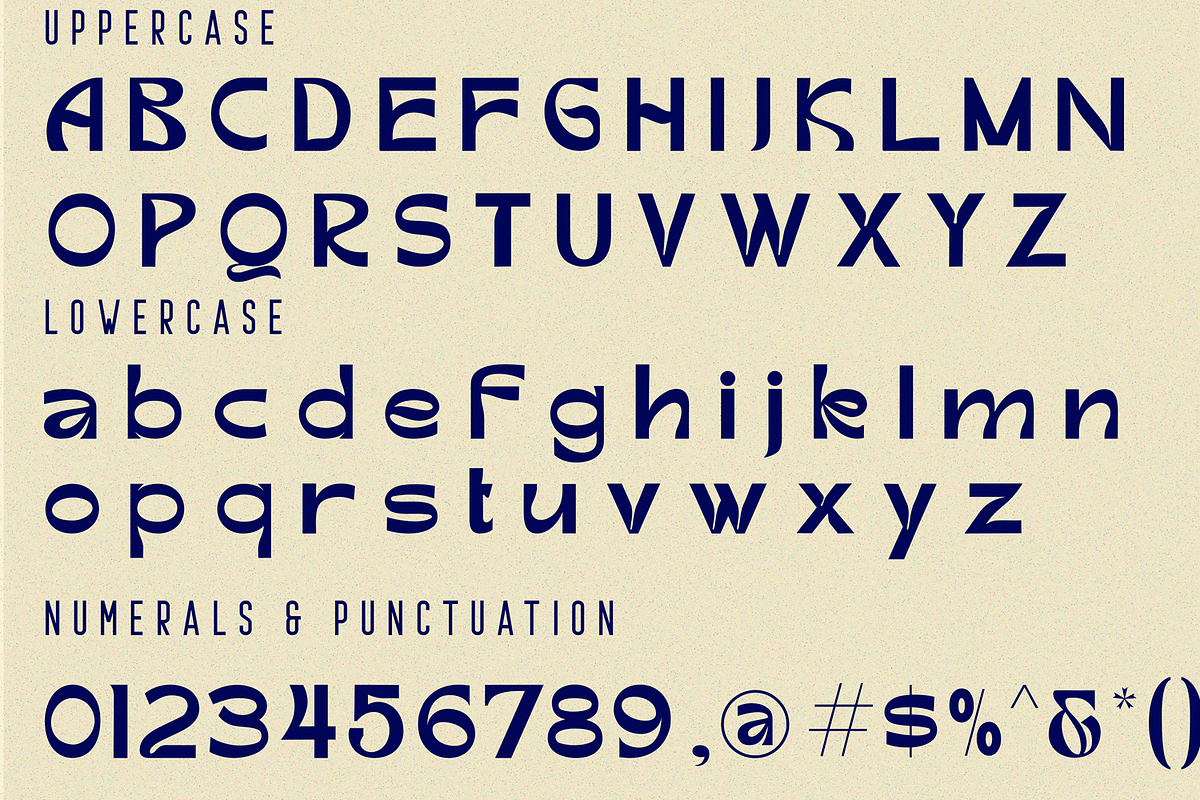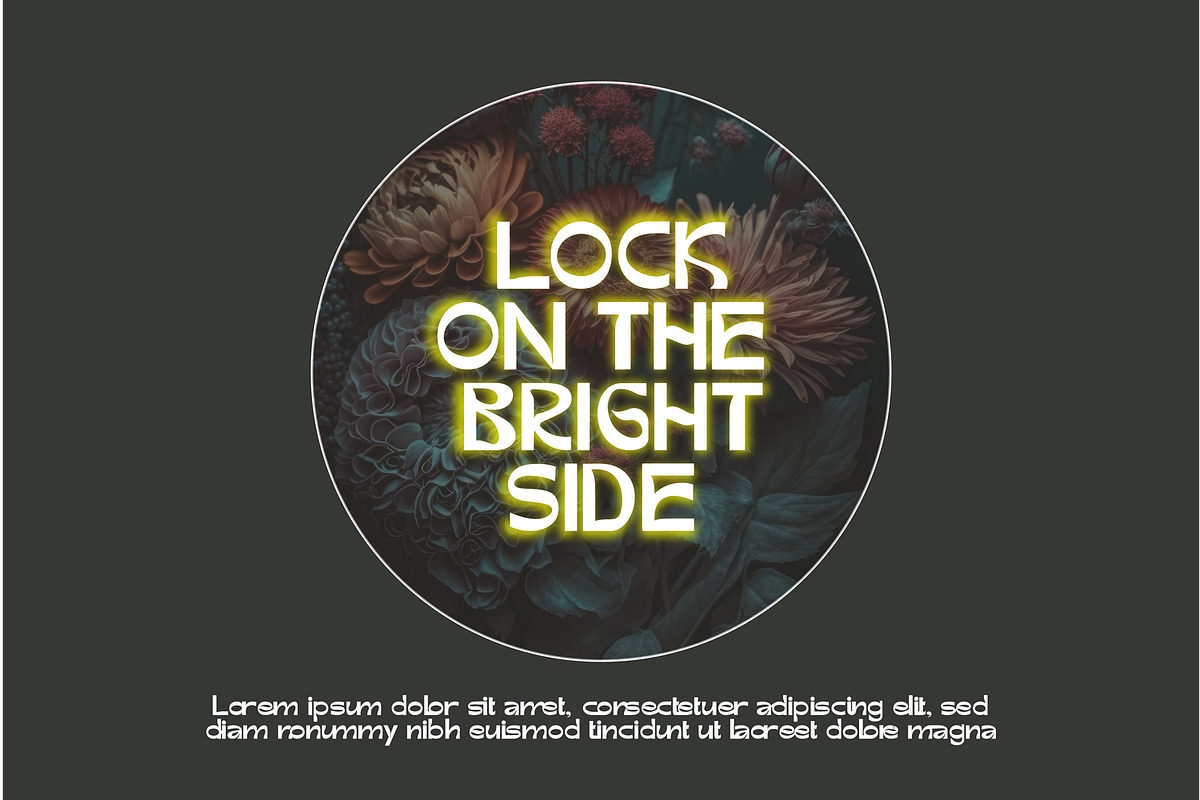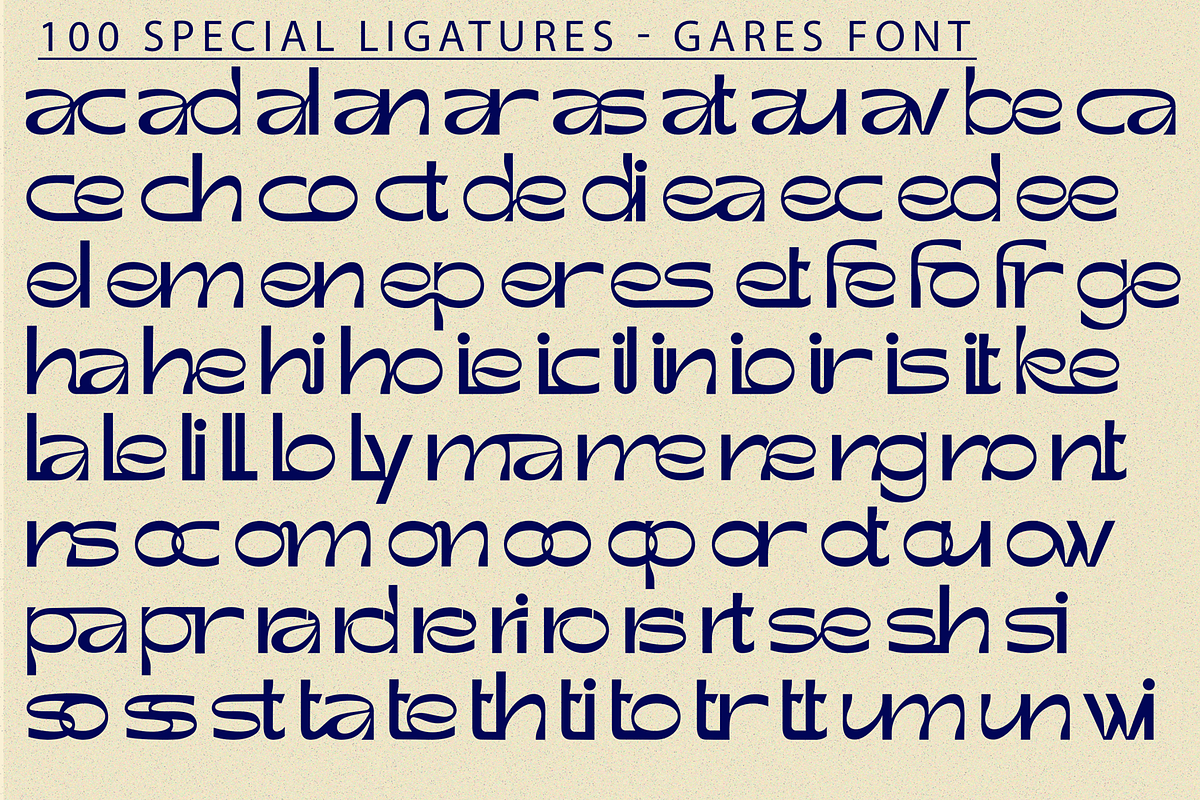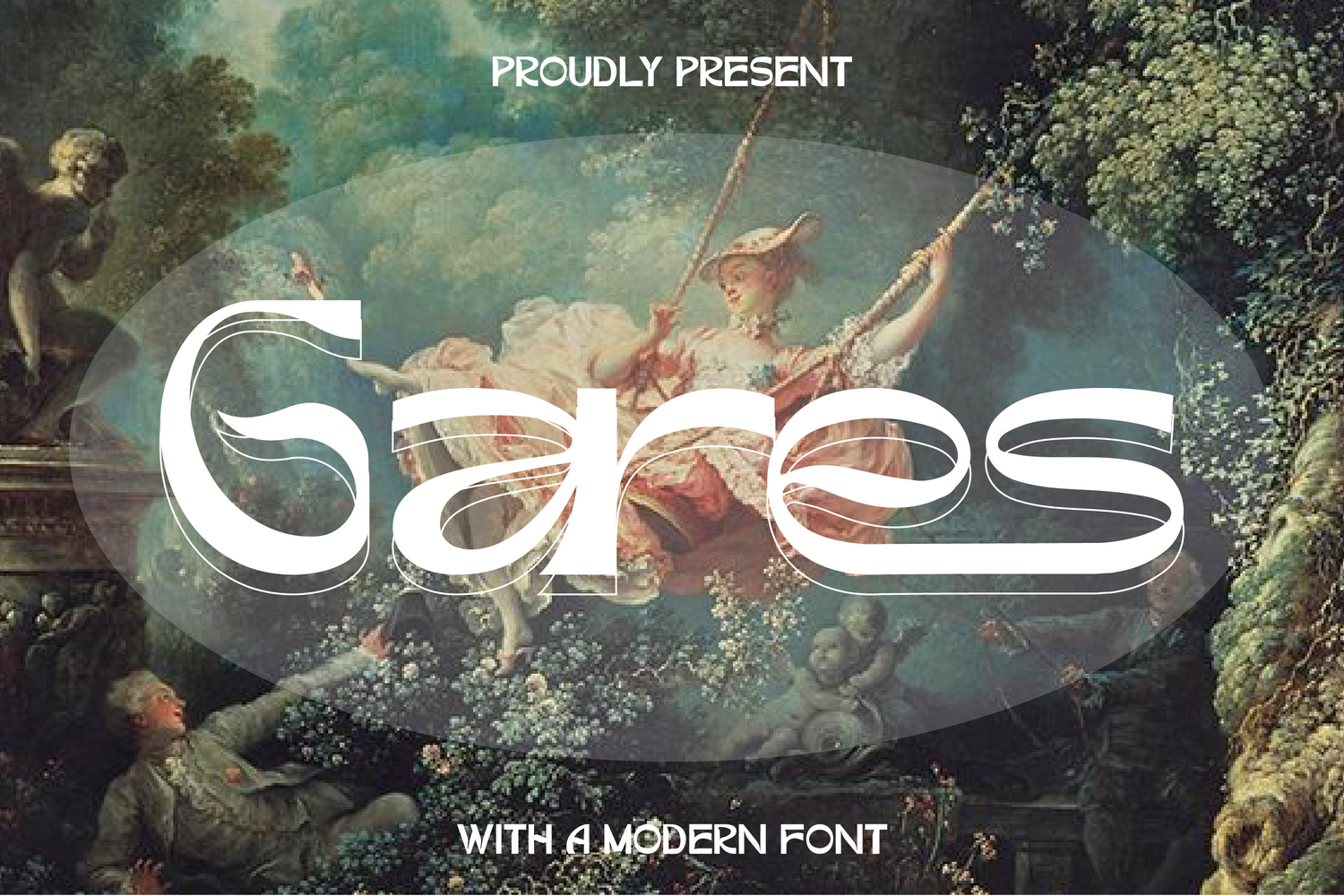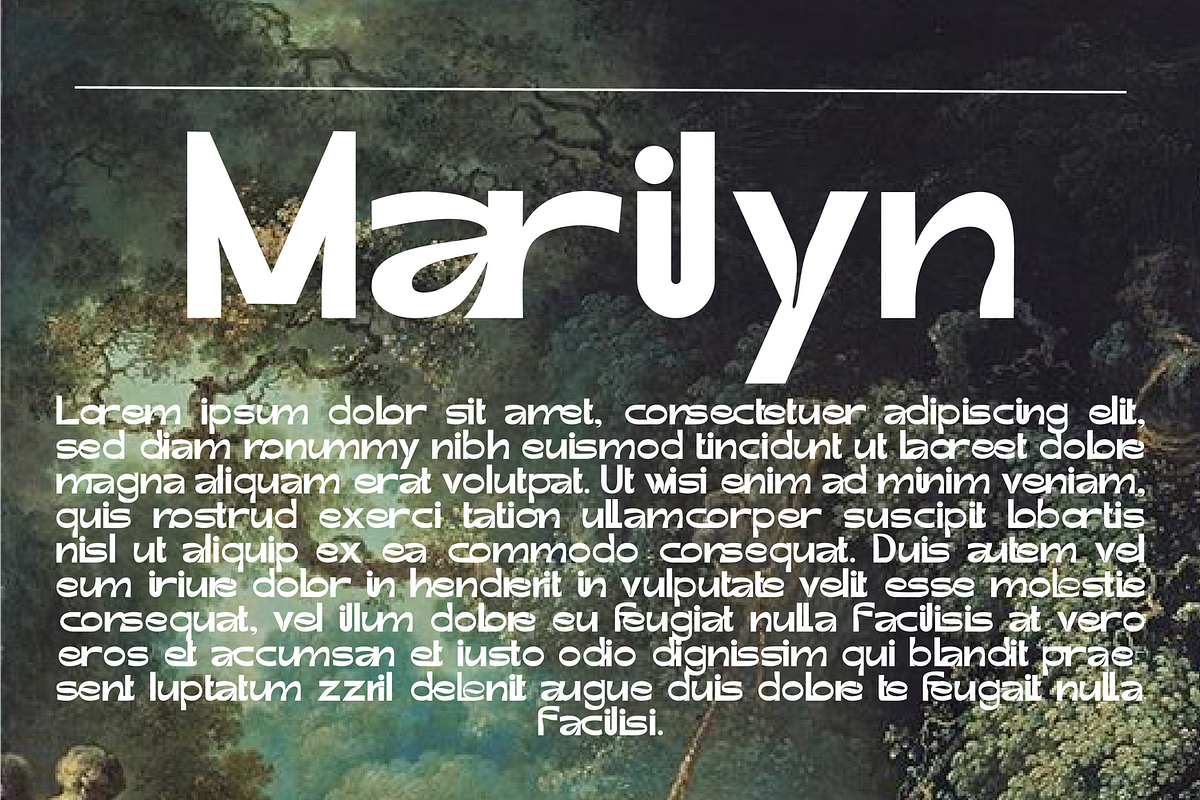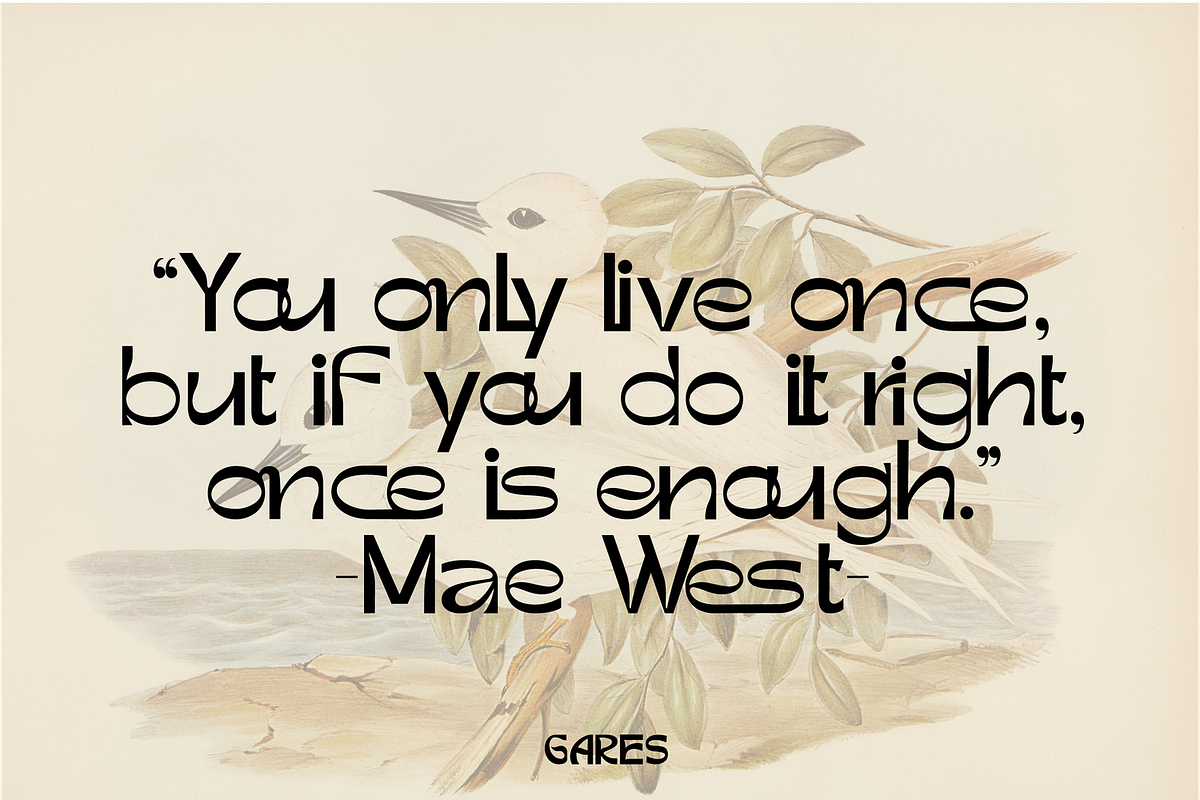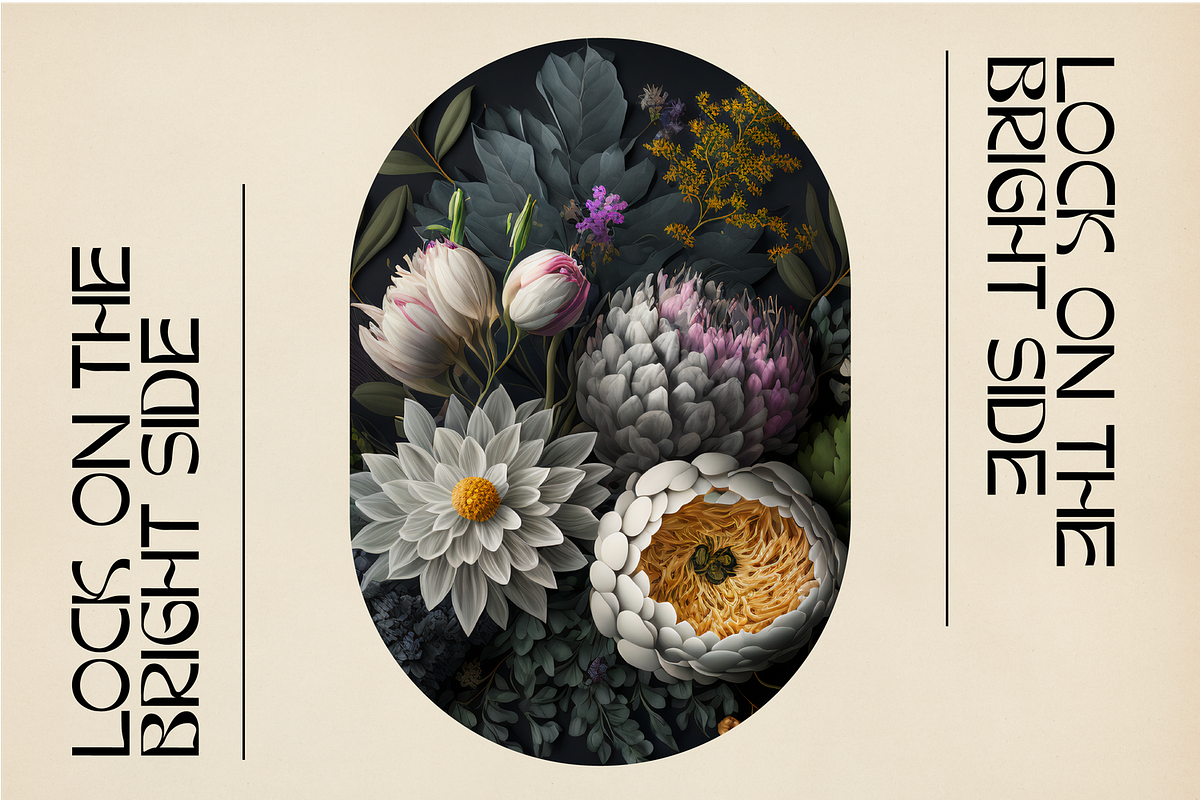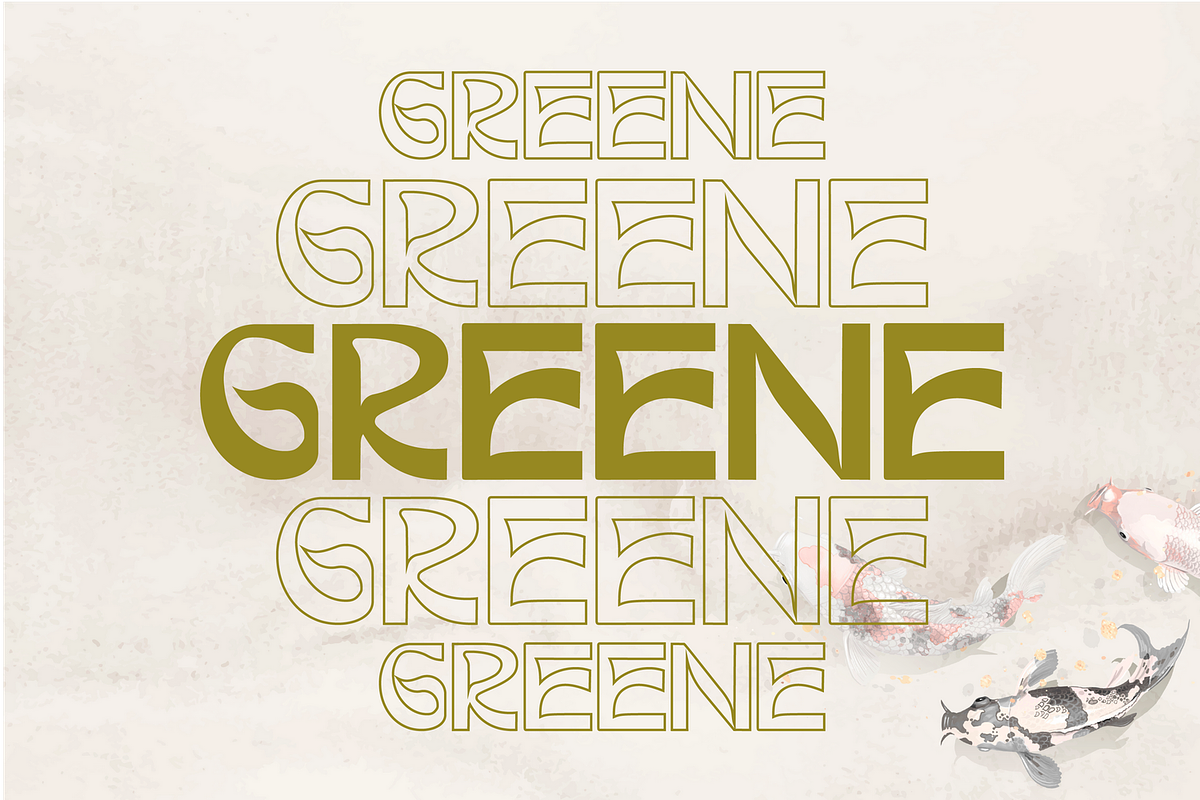
Gares Modern Sans Font - is a modern display sans font, simplistic, high-contrast sans that is at home in high-end fashion and cultural environments that you can explore and combine. Use this display font to add that special retro touch to any design idea you can think of!. Masterfully designed to become a true favorite, this font has the potential to bring each of your creative ideas to the highest level!
Gares was built with OpenType features and includes 100 ligatures, alternate, numbers, punctuation, and it also supports other languages.
ac ad al an ar as at au av be ca ce ch co ct de di ea ec ed ee el em en ep er es et fe fo fr ge ha he hi ho ie ic il in io ir is it ju ke la le li ll lo ly ma me mi nc nd ne ng no nt ns oc of om on oo op or ot ou ow pa pr ra rd re ri ro rs rt se sh si so ss st ta te th ti to tr tt um un ur ve wi wo
- Special Ligatures